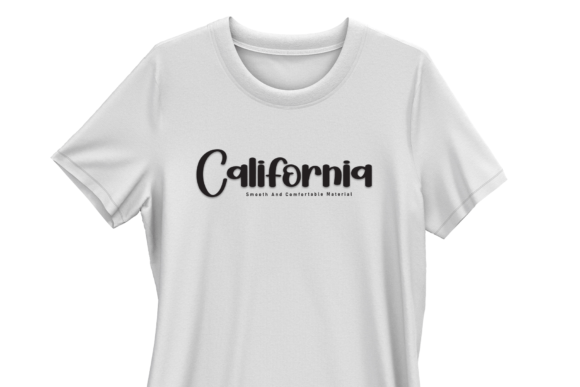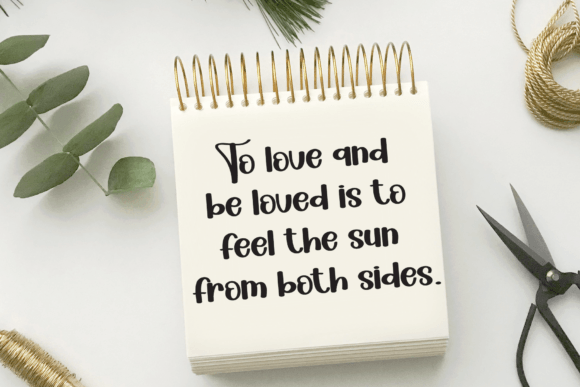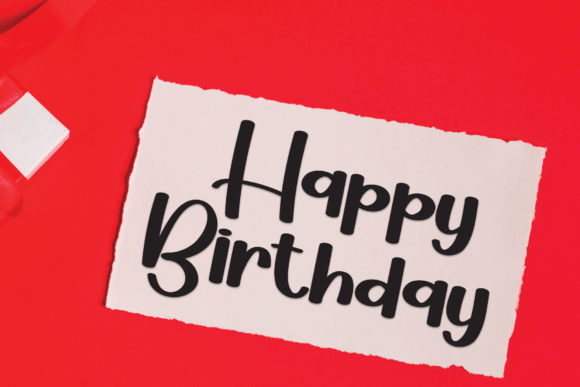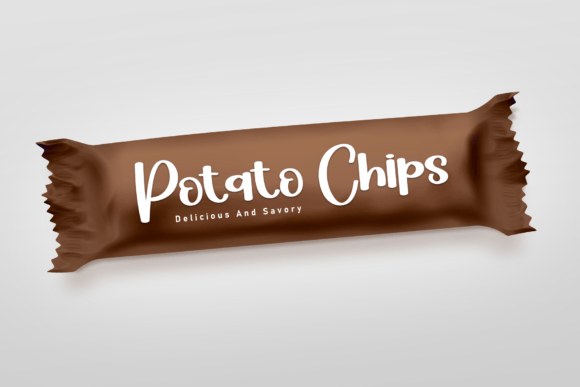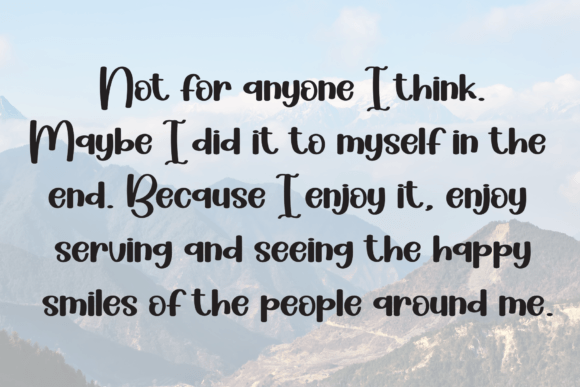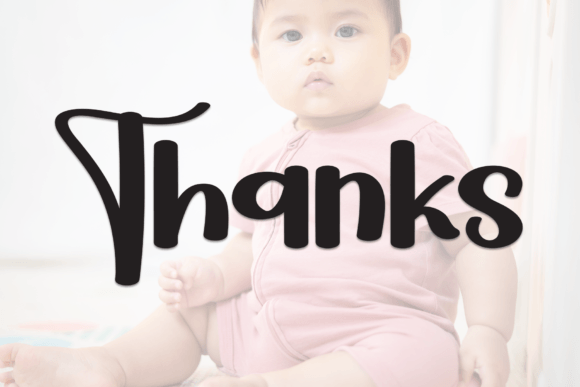
Baby Chubby Font: The Sweet and Friendly Handwritten Font for Your Design Needs
Are you a designer or crafter looking for a font that can add a touch of sweetness and friendliness to your designs? Look no further than the Baby Chubby font! This beautiful handwritten font is perfect for a wide range of design projects, from baby-themed designs to wedding invitations, and everything in between.
What is Baby Chubby Font?
Baby Chubby is a sweet and friendly handwritten font that is sure to capture the hearts of your audience. Its natural and unique style makes it incredibly fitting to a large pool of designs, and the only limit is your imagination! Whether you’re designing for a client or creating something for your own business, Baby Chubby is the perfect choice.
Key Features of Baby Chubby Font
- Handwritten style: Baby Chubby has a beautiful, handwritten style that gives it a personal and friendly touch.
- Unique and natural: The font’s unique and natural style makes it stand out from other fonts and adds a touch of personality to your designs.
- Versatile: Baby Chubby is incredibly versatile and can be used for a wide range of design projects, from baby-themed designs to wedding invitations, and more.
- Easy to read: Despite its playful and handwritten style, Baby Chubby is easy to read and understand, making it perfect for body text and headings.
Uses of Baby Chubby Font
Baby Chubby is a versatile font that can be used for a wide range of design projects, including:
- Baby-themed designs: Baby Chubby is perfect for baby-themed designs, such as baby shower invitations, birth announcements, and nursery decor.
- Wedding invitations: The font’s sweet and friendly style makes it perfect for wedding invitations, especially for couples who want to add a touch of whimsy to their big day.
- Children’s products: Baby Chubby is a great choice for children’s products, such as children’s books, toys, and games.
- Stationery and greeting cards: The font’s playful and handwritten style makes it perfect for stationery and greeting cards, such as birthday cards, thank-you cards, and more.
Tips for Using Baby Chubby Font
Here are a few tips for using Baby Chubby font in your designs:
- Use it as a headline font: Baby Chubby is perfect for headlines and titles, where its playful and handwritten style can really shine.
- Pair it with other fonts: Baby Chubby can be paired with other fonts to create a unique and interesting contrast. Try pairing it with a clean and simple sans-serif font for a beautiful contrast.
- Experiment with colors: Baby Chubby looks great in a variety of colors, from bright and bold to soft and pastel. Experiment with different colors to find the one that works best for your design.
In conclusion, Baby Chubby font is a sweet and friendly handwritten font that is perfect for a wide range of design projects. Its natural and unique style makes it incredibly fitting to a large pool of designs, and the only limit is your imagination! Whether you’re a designer or crafter, Baby Chubby is a great choice for adding a touch of personality and whimsy to your designs.